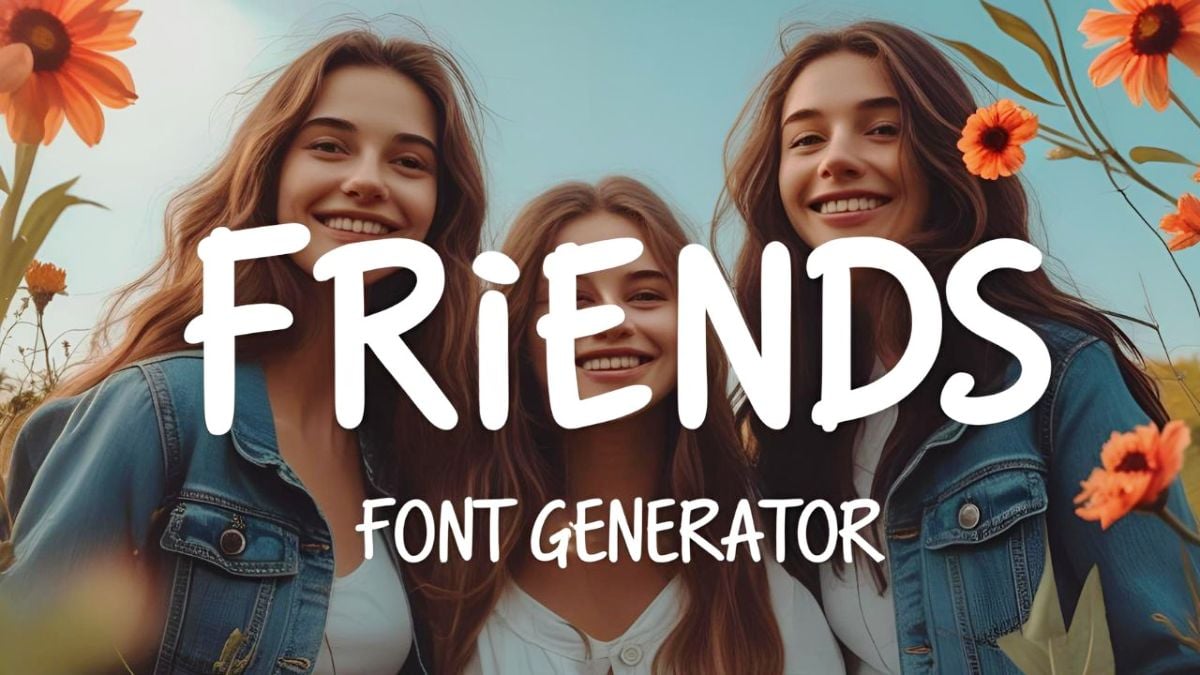
Bring the iconic style of the Friends TV show to your text with our Friends Font Generator. Download the Gabriel Weiss Friends font for free (License Type: Free for personal use) and create social posts, invitations, and creative projects inspired by the legendary sitcom.
Download Friends Font FreeThe Friends font, officially known as Gabriel Weiss Friends, perfectly captures the playful, handwritten style featured in the logo and titles of the beloved Friends sitcom. Its rounded letters and whimsical dots evoke nostalgia and instantly connect your designs to the world-famous series.
Authentic Sitcom Typography
Generate text with the real Friends font—ideal for TV show-inspired, nostalgic, or playful designs.
Design Tips for Sitcom Fonts
- Use Bright Accents: Friends fonts look best with yellow, red, and blue dots or backgrounds for a playful vibe.
- Keep It Fun: Combine with doodles or icons for a true sitcom feel.
- Pair with Clean Fonts: Use Friends for headings and a simple sans-serif for body text.
Its playful, handwritten style and iconic dots instantly evoke the beloved sitcom—perfect for fans and pop culture projects.